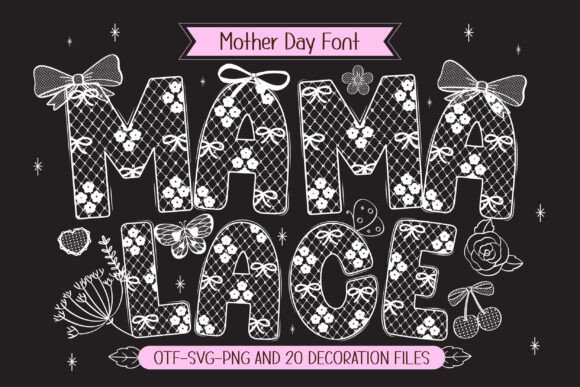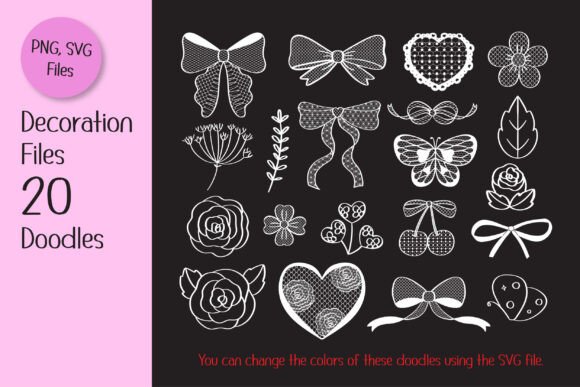
Mama Lace Font
Introducing “Mama Lace” a Mother’s Day-themed font designed with the delicate and intricate beauty of lace to symbolize the warmth, tenderness, and strong bond between a mother and child. Every letter is crafted with elegance and sophistication, reflecting a mother’s love and care—just like the delicate yet resilient threads of lace. This font comes with 20 matching Lace Doodle Cliparts, making it perfect for Mother’s Day posters, heartfelt quotes, t-shirts, custom names, DIY craft projects, and more. Whether you’re creating a thoughtful gift or a personalized design, Mama Lace adds a touch of refinement and heartfelt emotion to every project.